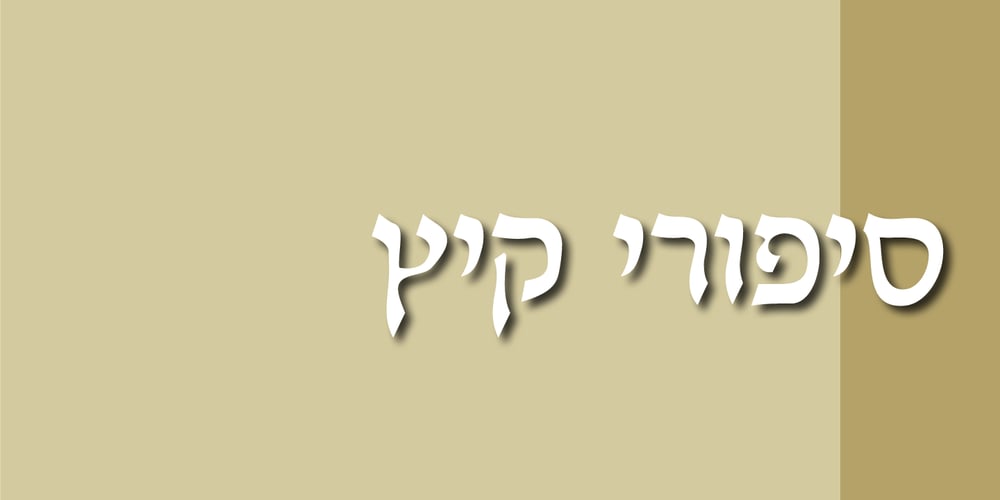
Shalgonim MF Font Family was designed by Eliyahu Fried and published by Masterfont. Shalgonim MF contains 2 styles and family package options. Delicate and tender, a serif font with round elements that makes it a great companion to elegant, romantic or retro design.